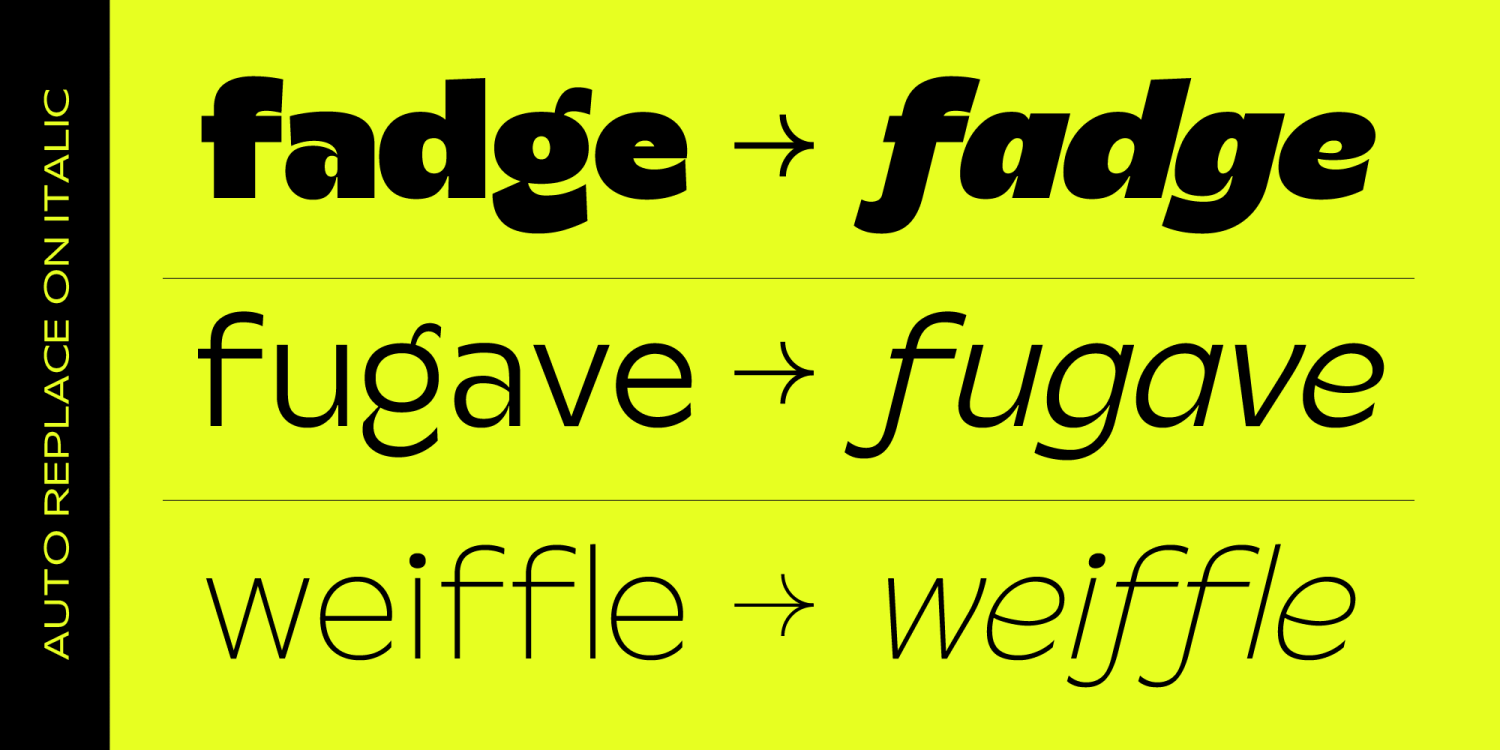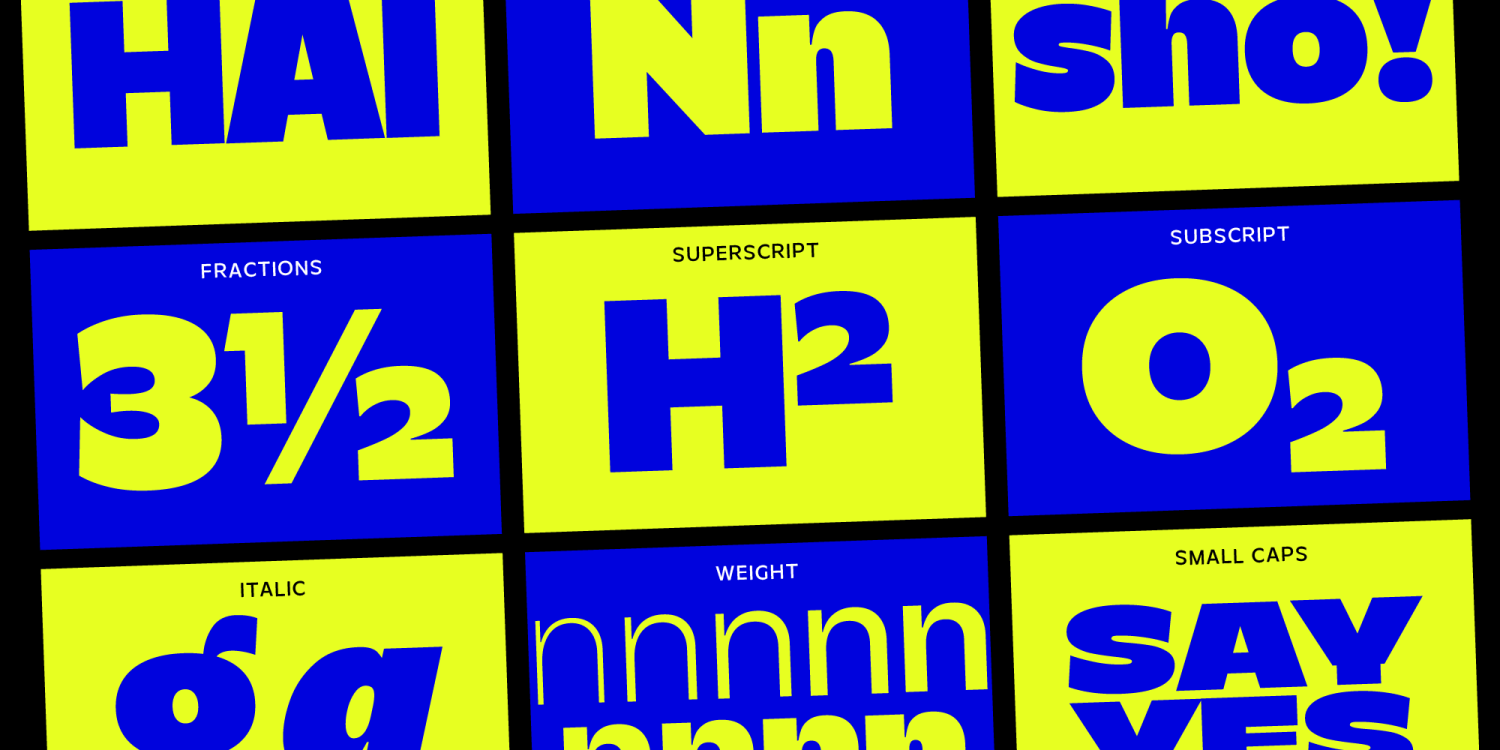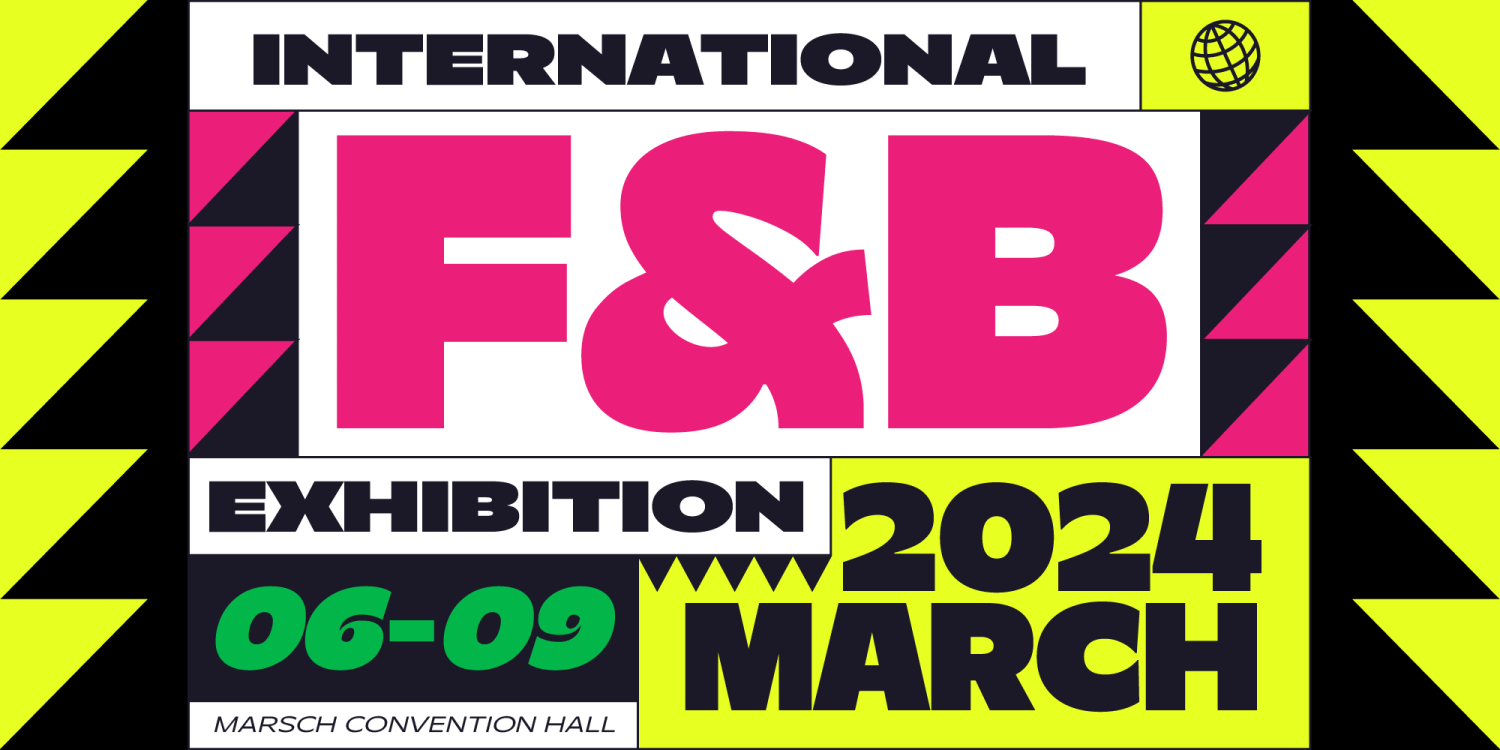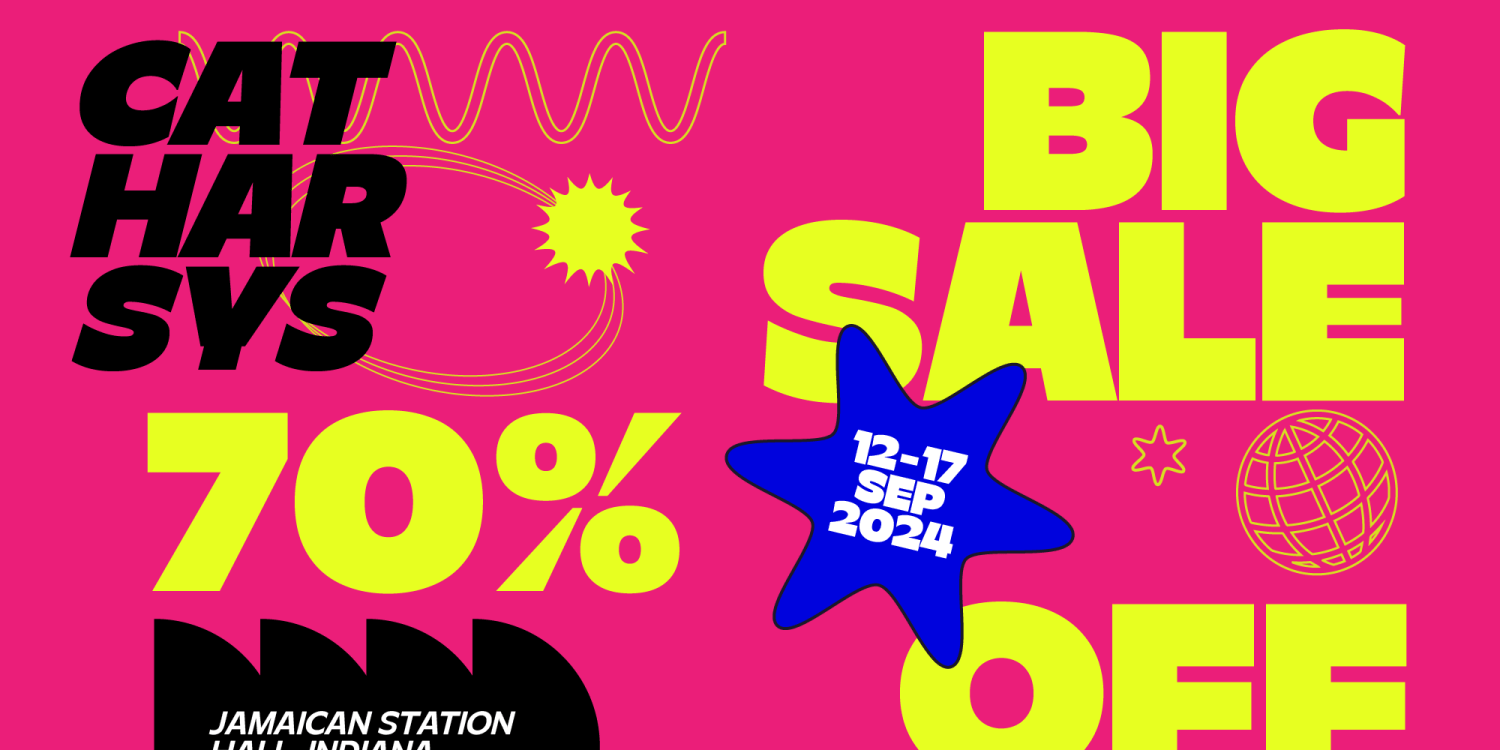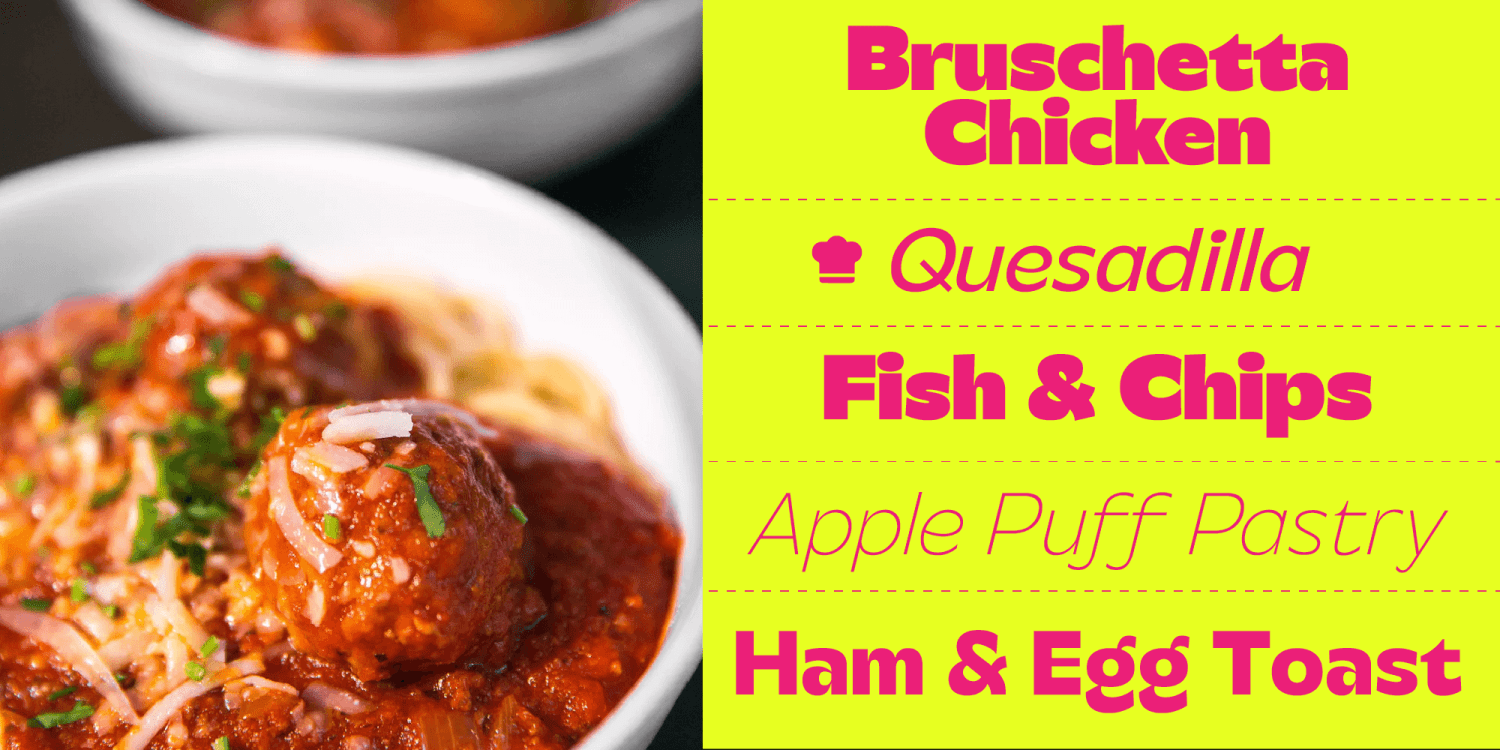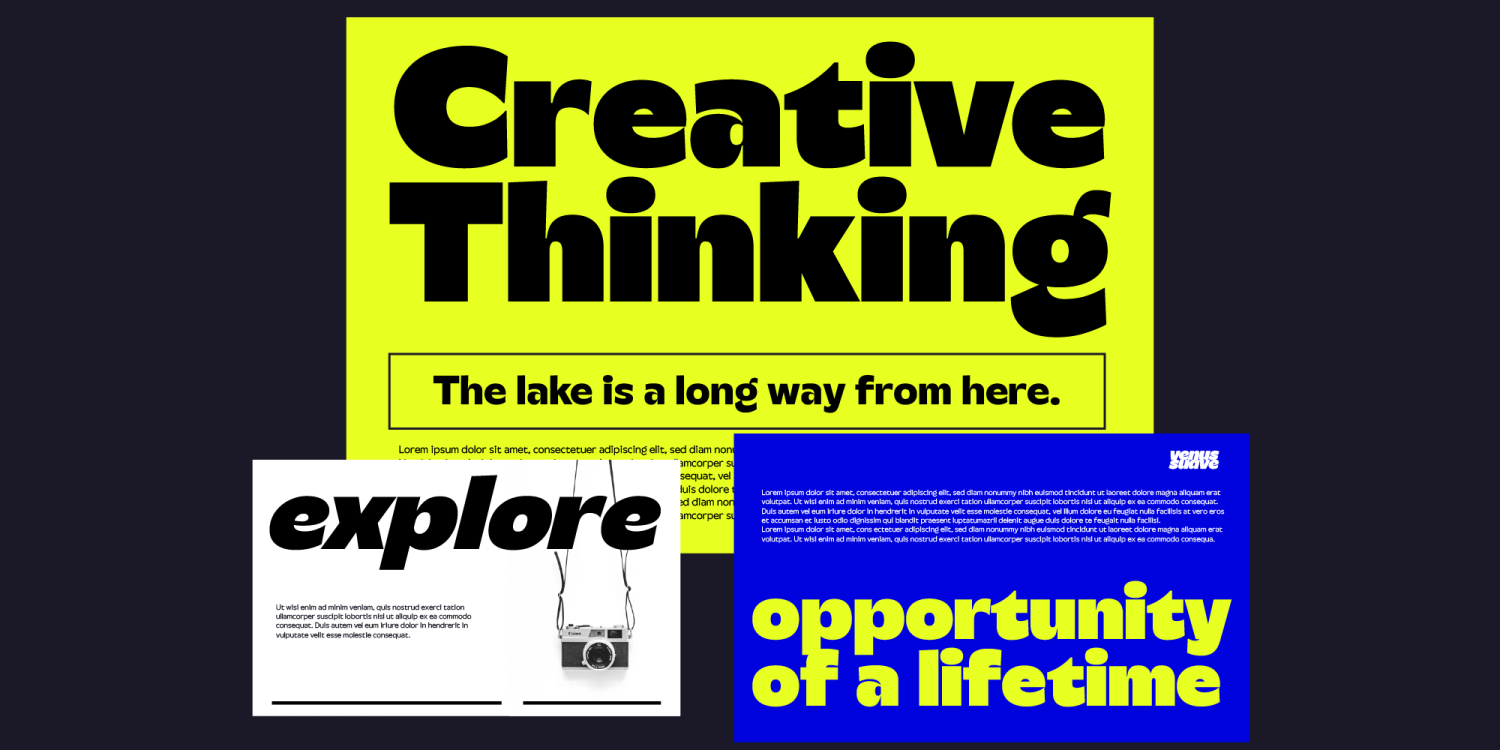
About Steg Pro
Introducing Steg Pro – an ultra-bold and minimalist sans-serif font designed for impactful headlines and big text. With its modern simplicity, Steg Pro commands attention and delivers a strong visual presence. Crafted with clean lines and sharp…